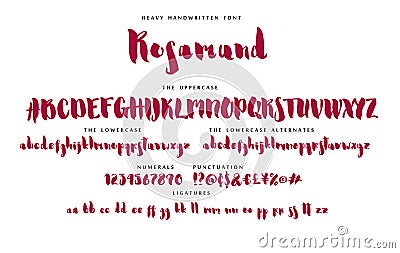
Handwritten Script Font Vector Alphabet Rosamund Set
Handwritten skript font heavy alphabet Rosamund set with uppercase and lowercase letters numbers and punctuation. Calligraphy signs. Letter stock vector illustration. Hand drawn typography typeset.